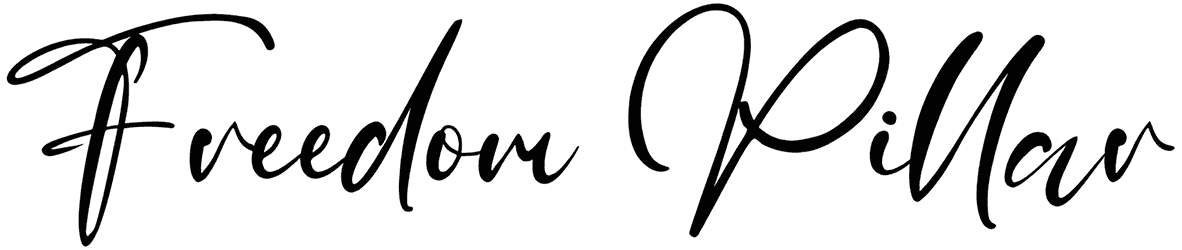
Freedom Pillar Font
Freedom Pillar is a professional version of handwritten fonts that uses personal and human emotions for empowerment. This script font has a strong baseline decorated using hand twists, and although it makes it difficult to read, it can still highlight any design.
A valuable font like Freedom Pillar is an excellent choice for designers who want to expand their creativity and improve the readability of their writing when creating invitations, wedding cards, and posters.